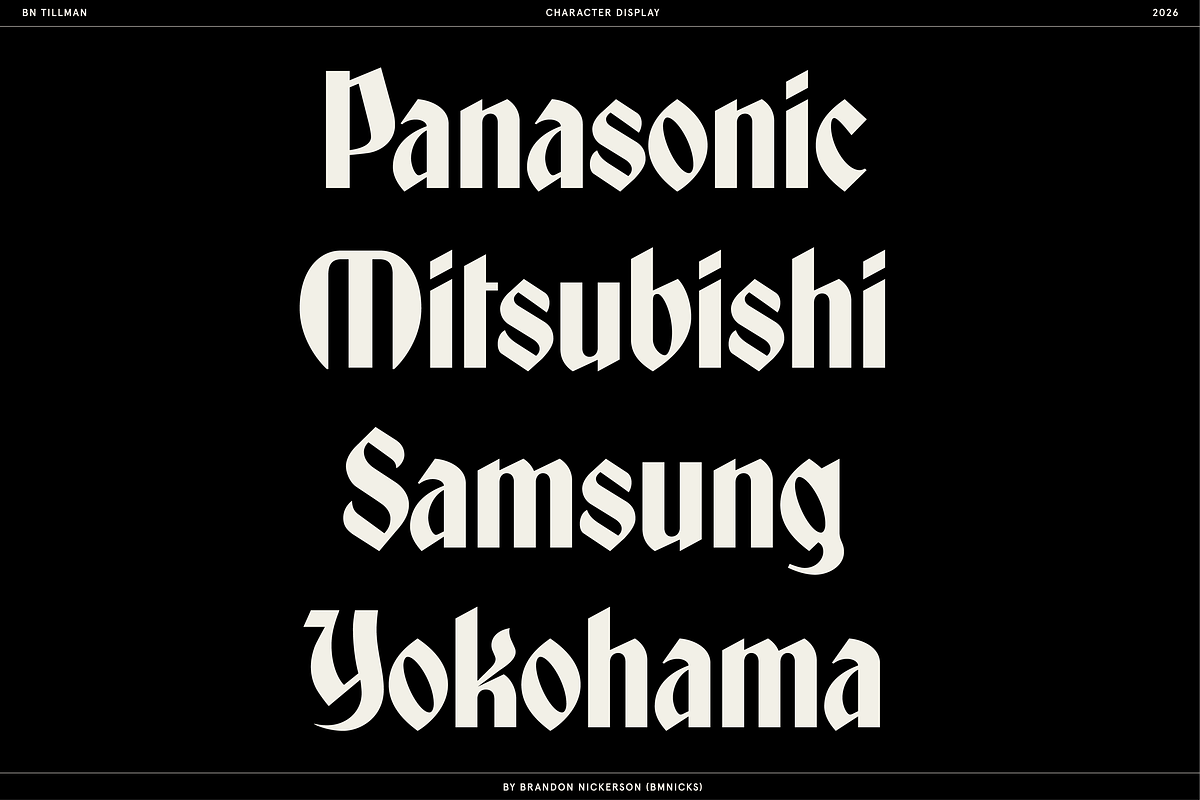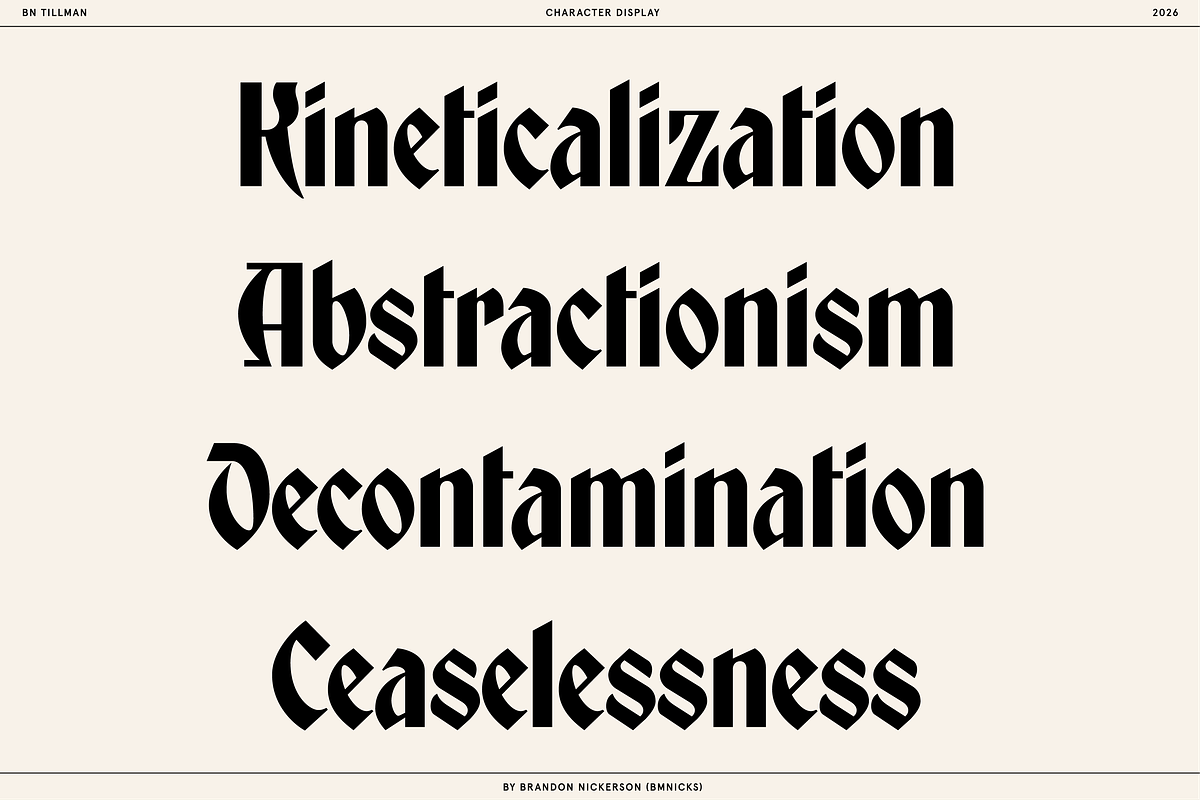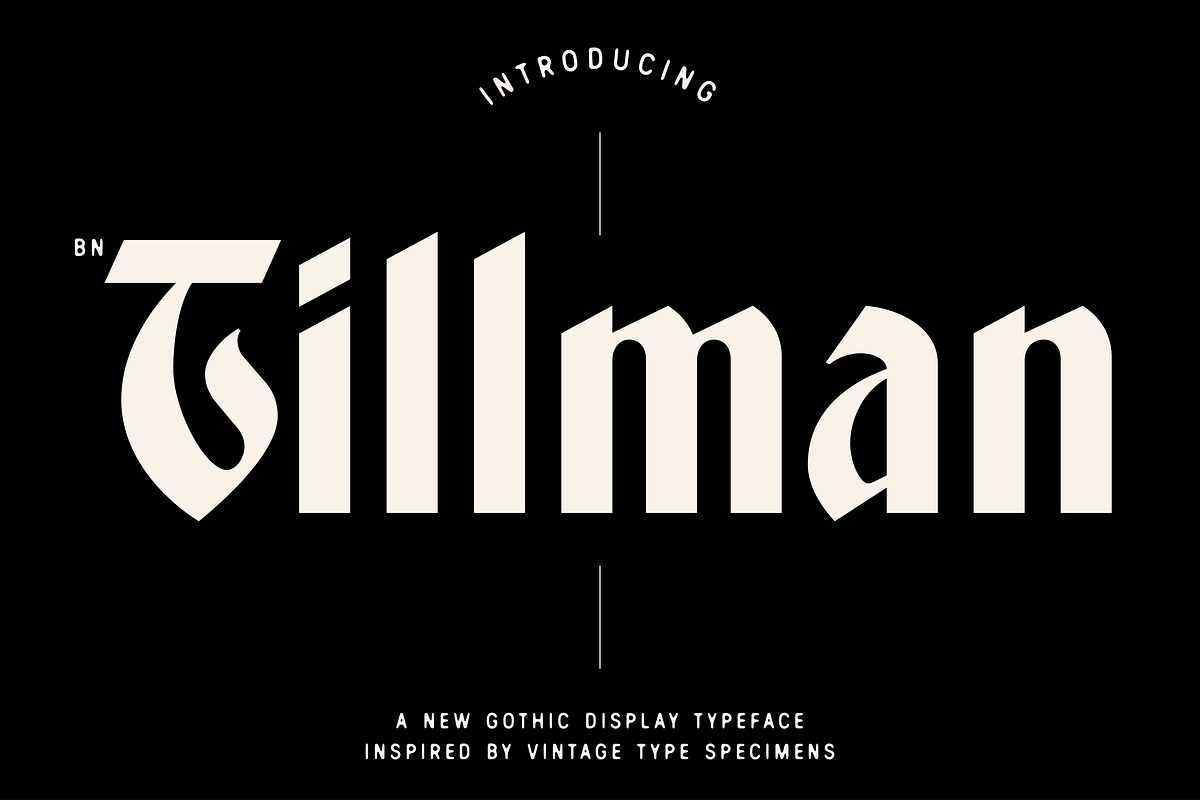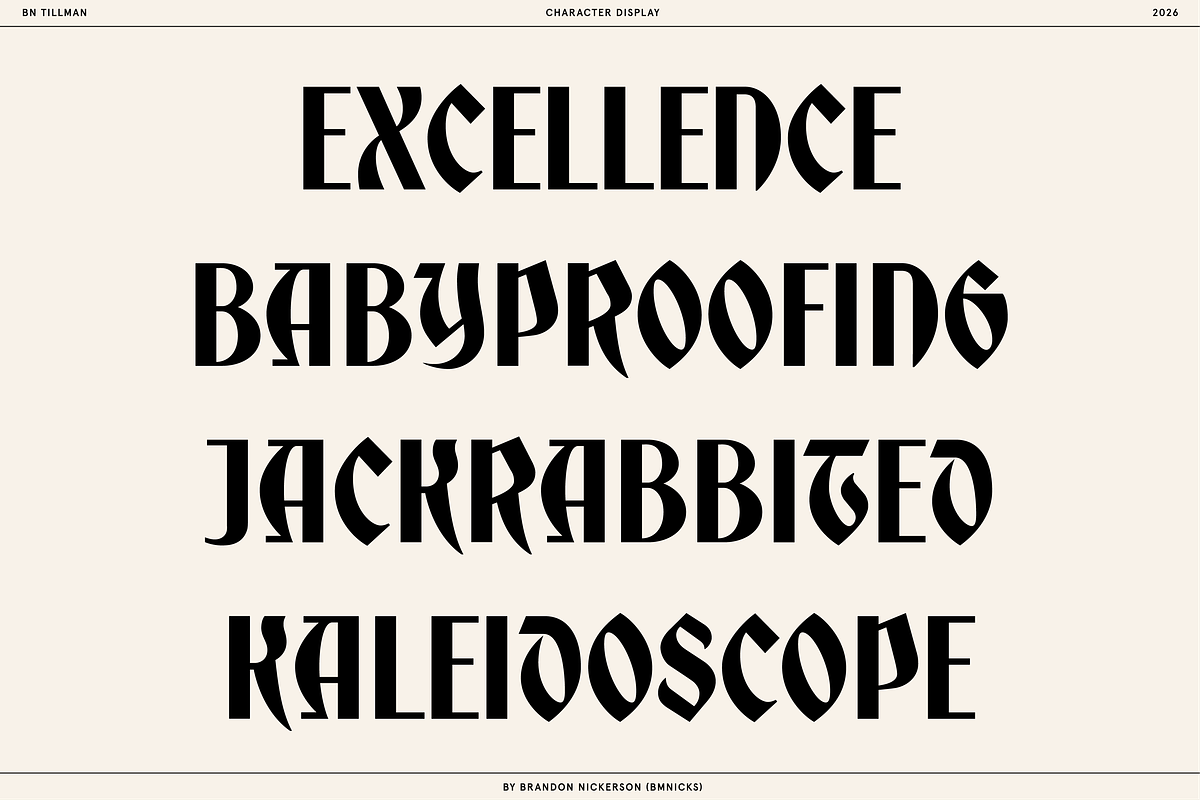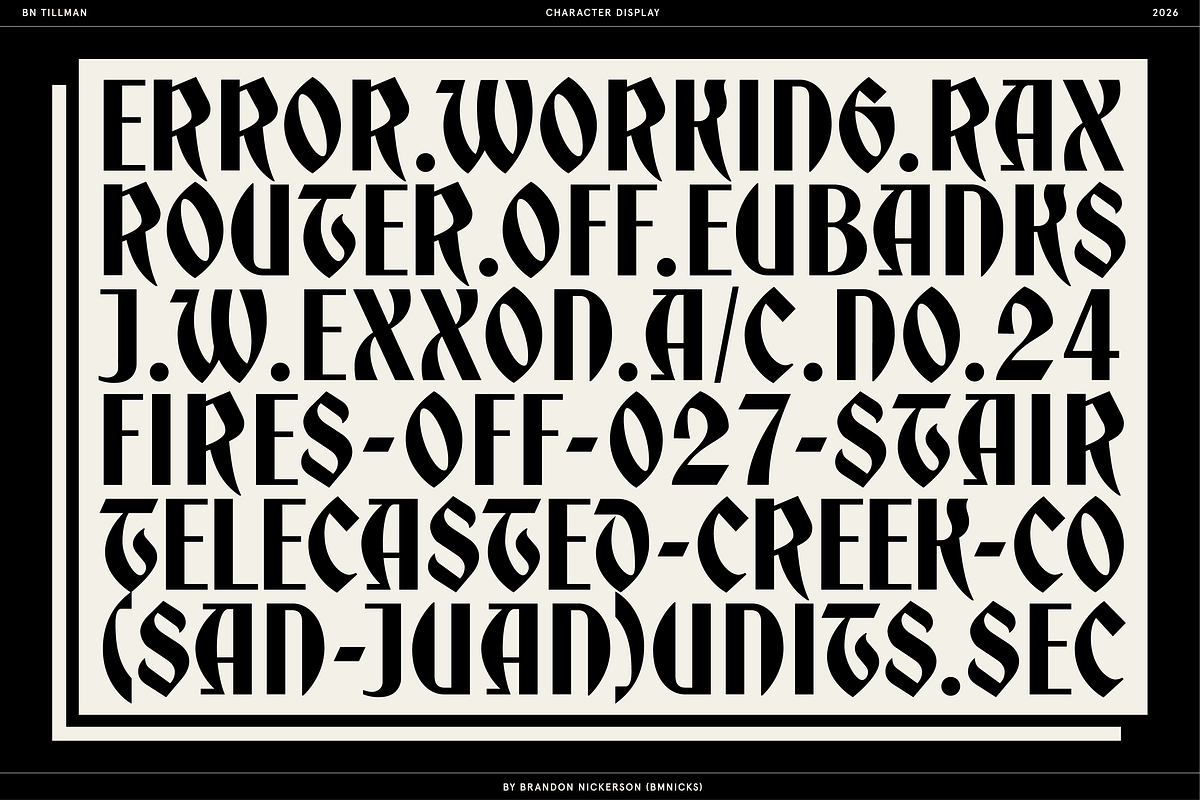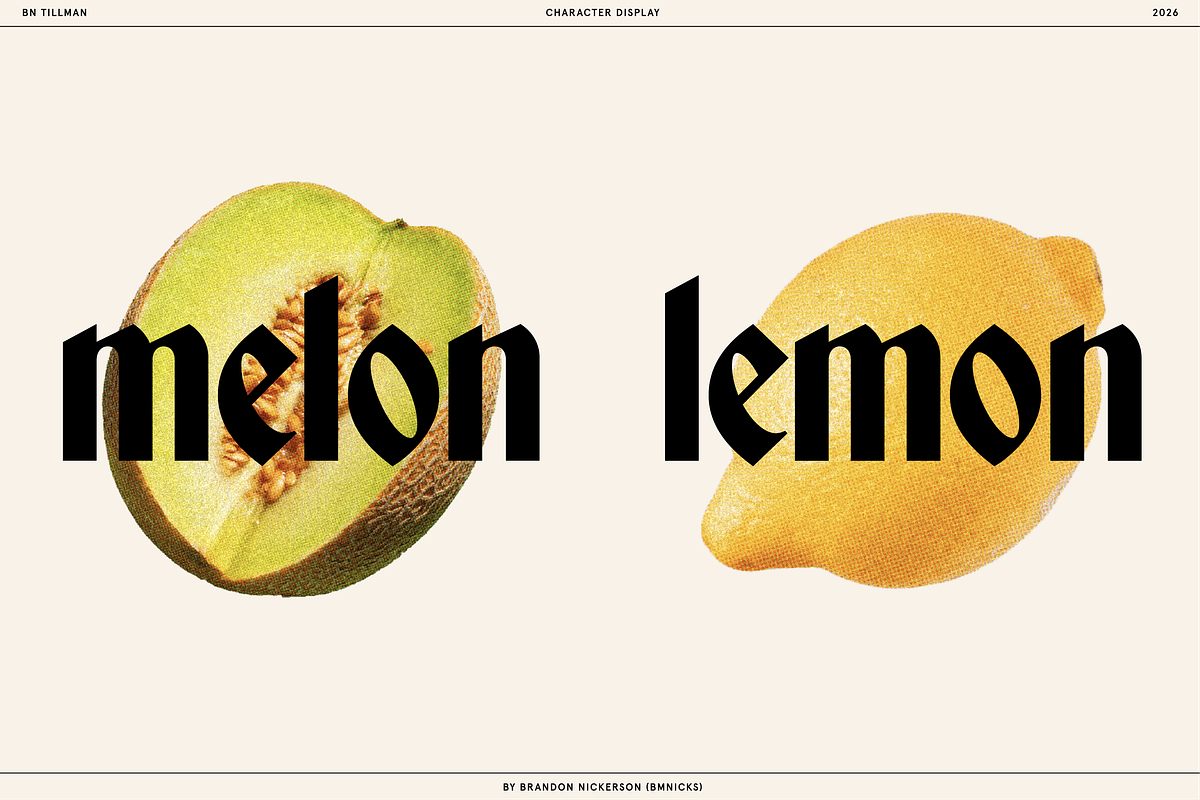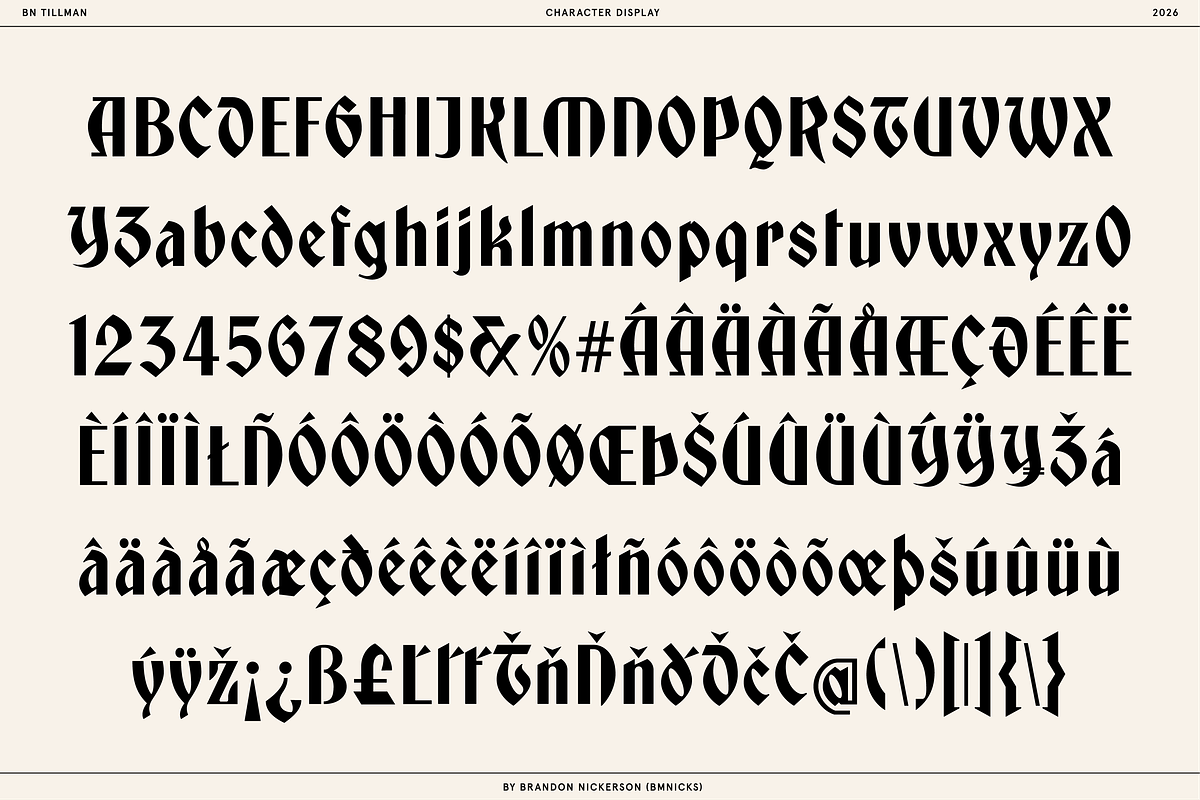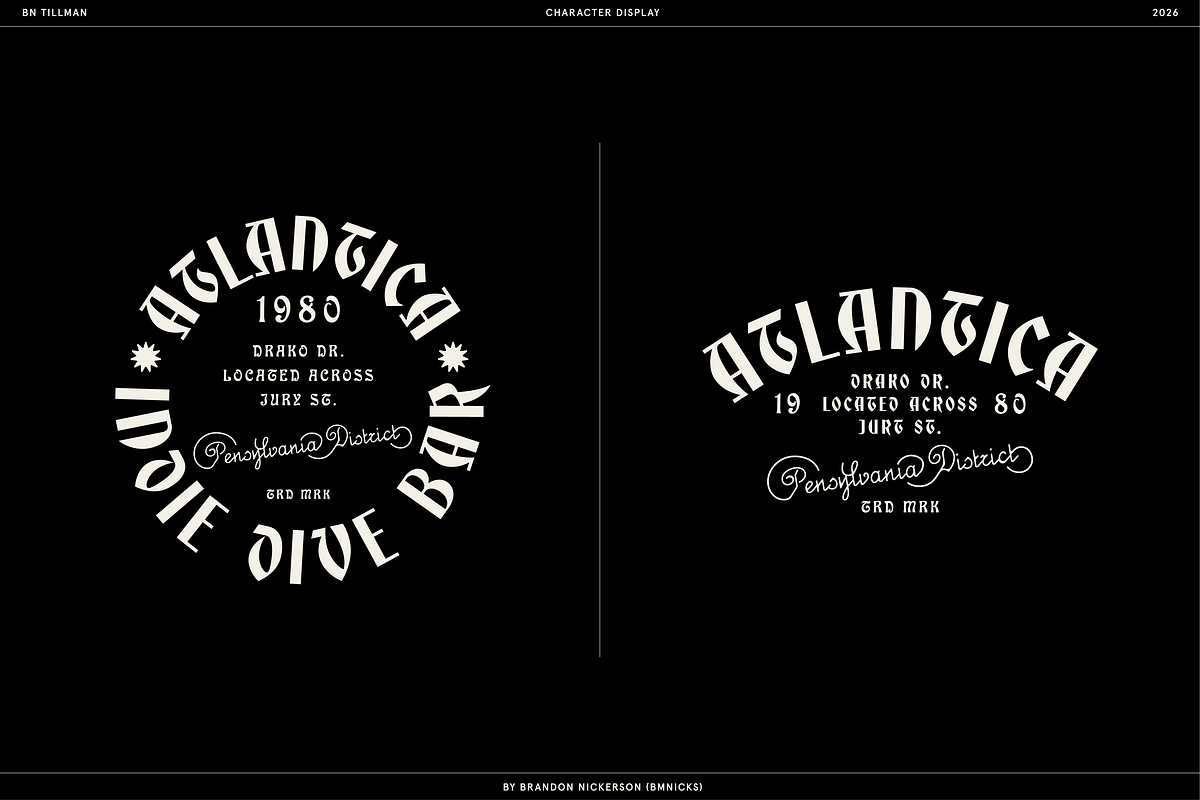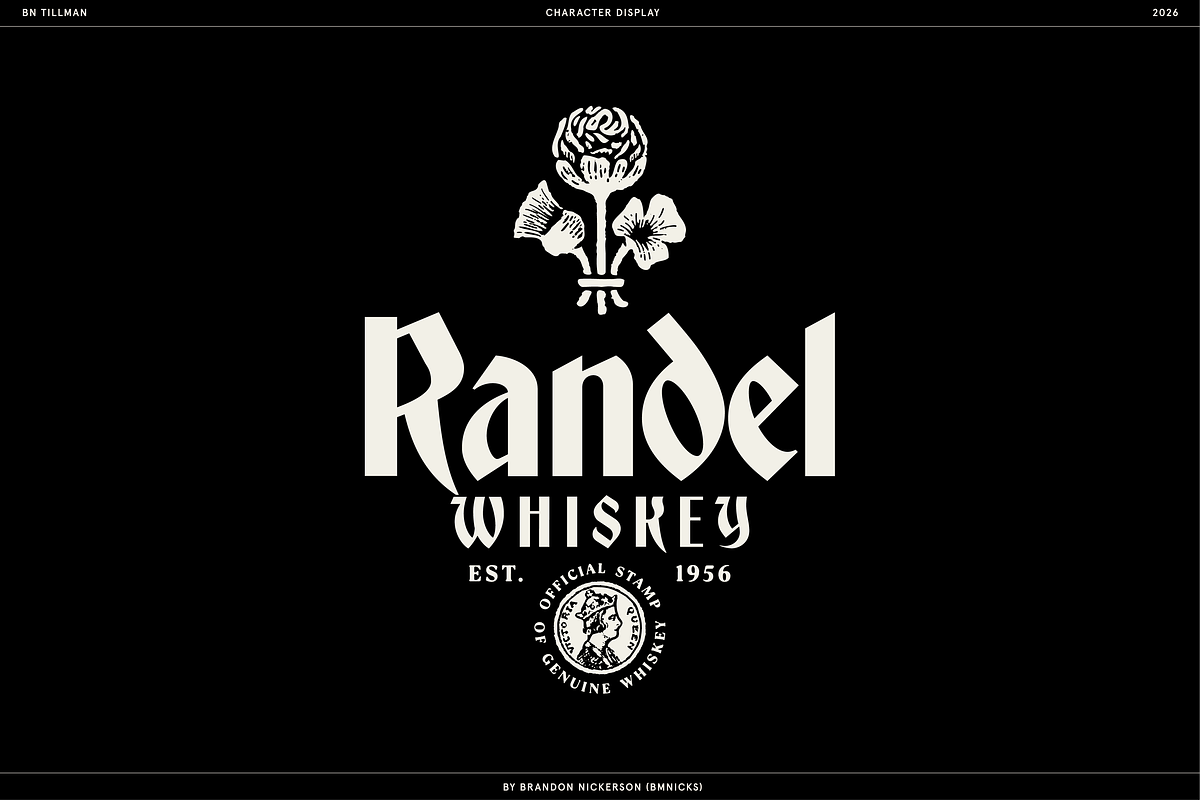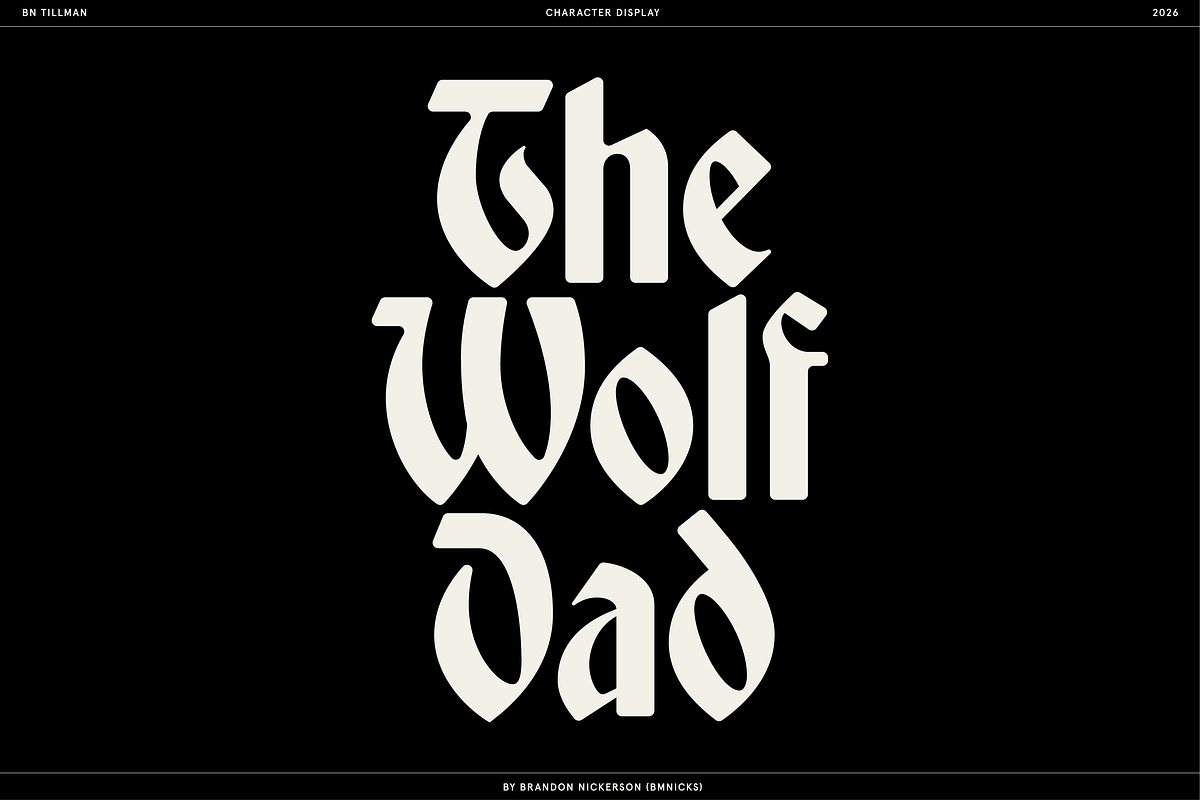
BN Tillman Gothic Display Typeface
BN Tillman - Bold Heritage Display Typeface
Tillman is a gothic inspired display "serif" built for impact. Inspired by vintage industrial lettering, heritage packaging, and early 20th-century blackletter influences, it blends old-world authority with contemporary sharpness.
Strong vertical stress, sculpted curves, and confident wedge terminals give BN Tillman a distinct presence. Key characteristics being: bold, graphic, and unapologetically expressive.